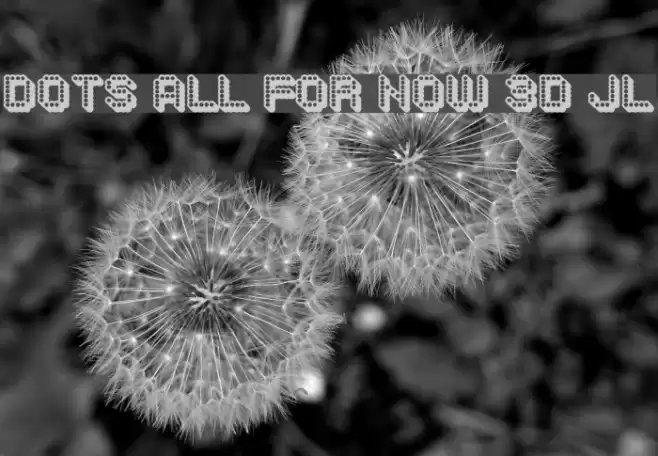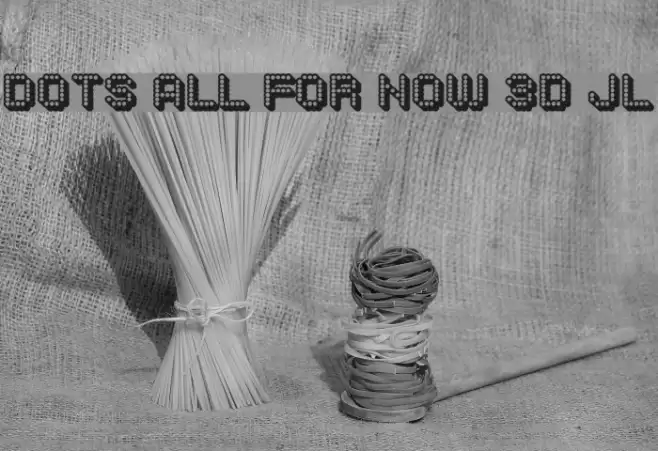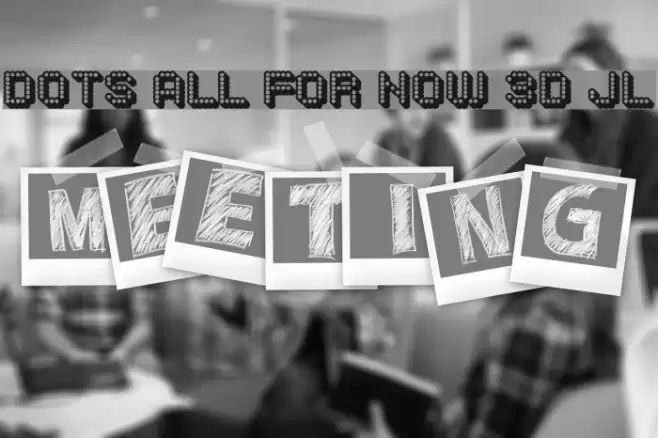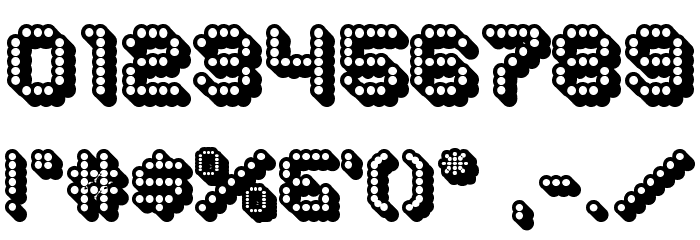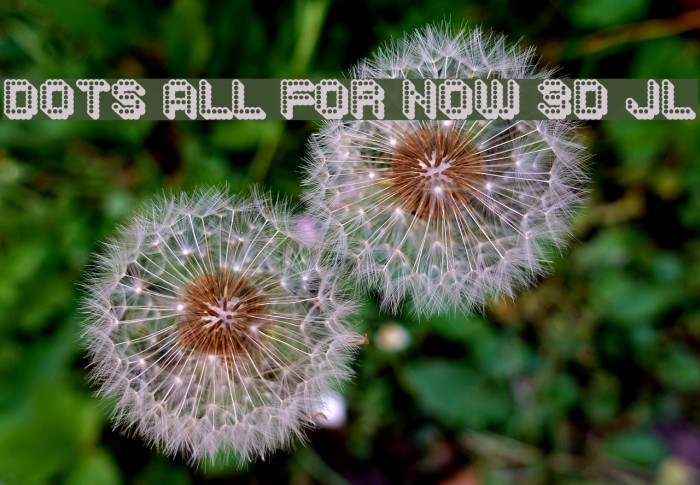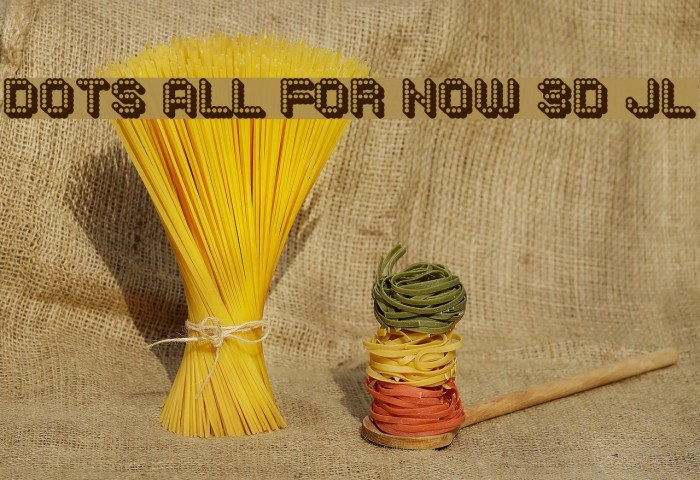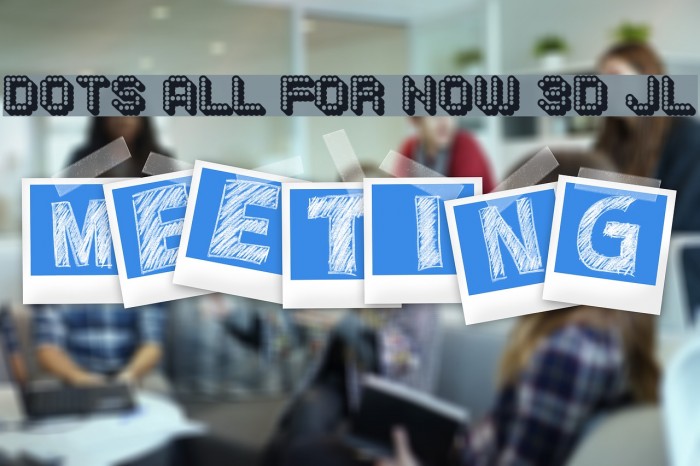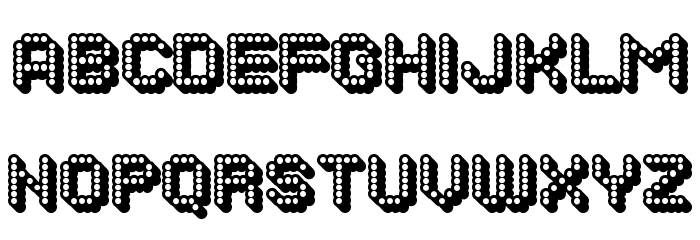
Dots All For Now 3D JL Font
Dots All For Now 3D JL Description
This font features a unique and playful design composed entirely of dots arranged in a grid-like pattern, creating a three-dimensional effect. Each character is formed by a series of interconnected dots, giving it a bold and distinctive appearance. The font maintains a consistent structure across uppercase, lowercase, numbers, and special characters, ensuring readability while adding a decorative flair. Its geometric and modular style makes it stand out, ideal for creative and modern design projects.
A playful, dot-based 3D font with a bold, geometric style from Dotted fonts.